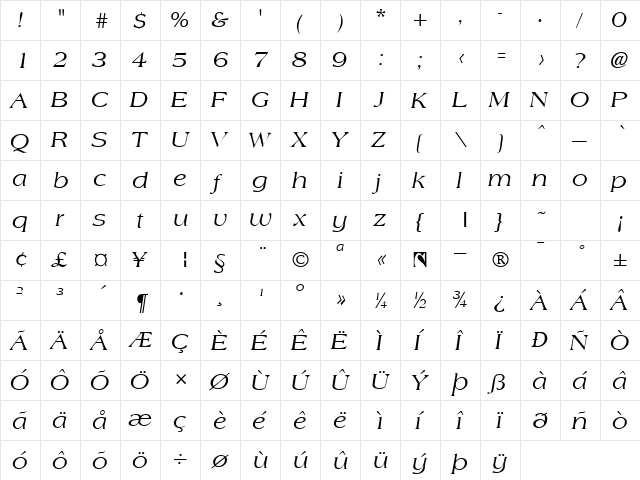
Aphid kursiv
Design Context for Aphid Typeface
Aphid offers clean, dependable letterforms without strong stylistic allegiance, making it a practical choice for designers who need flexibility. The slanted form adds forward momentum and visual energy.